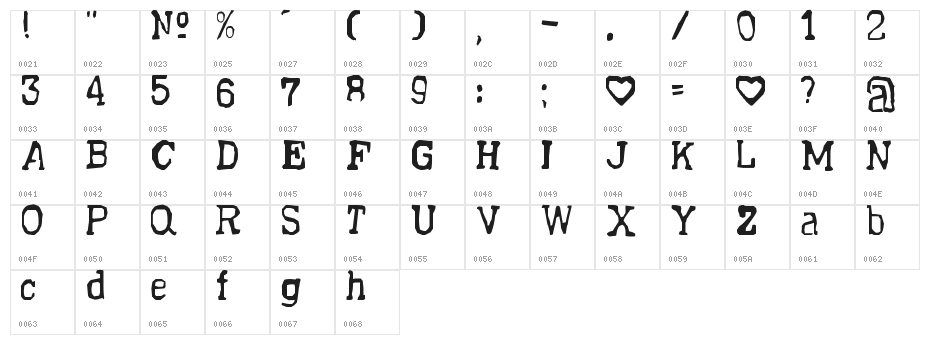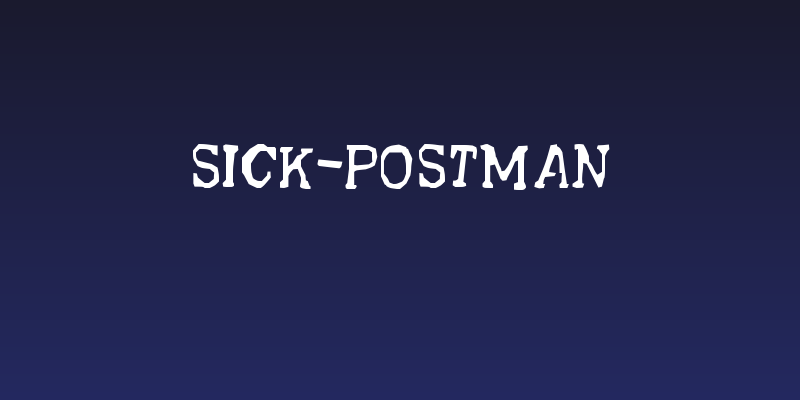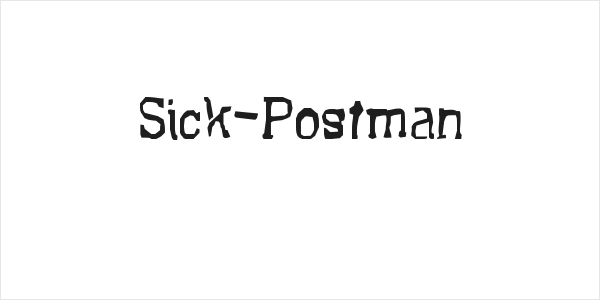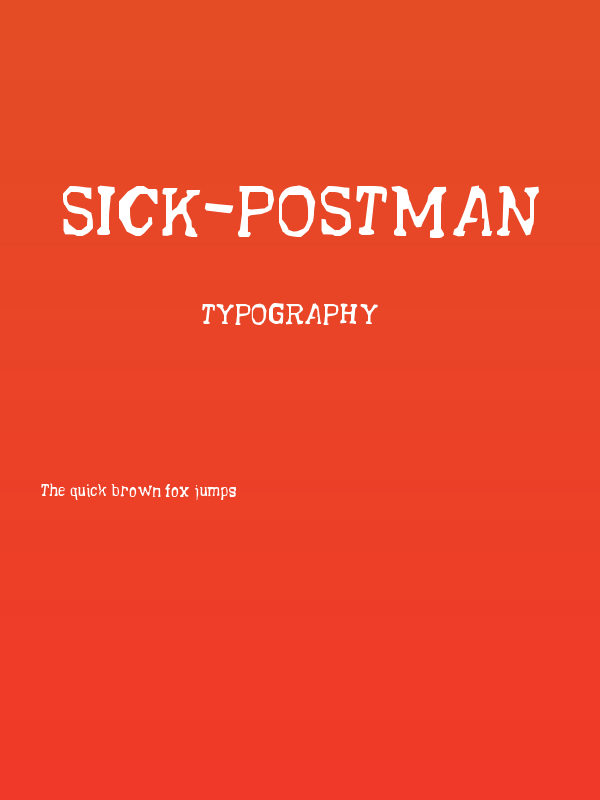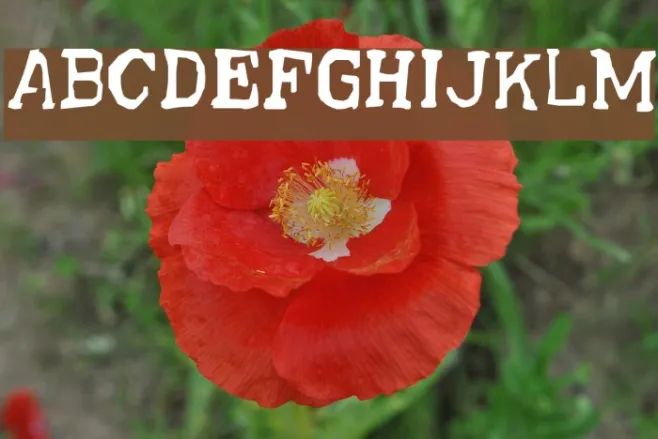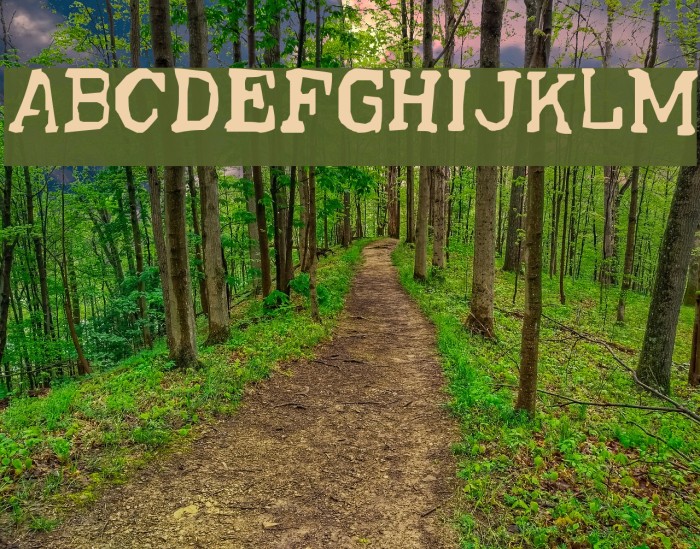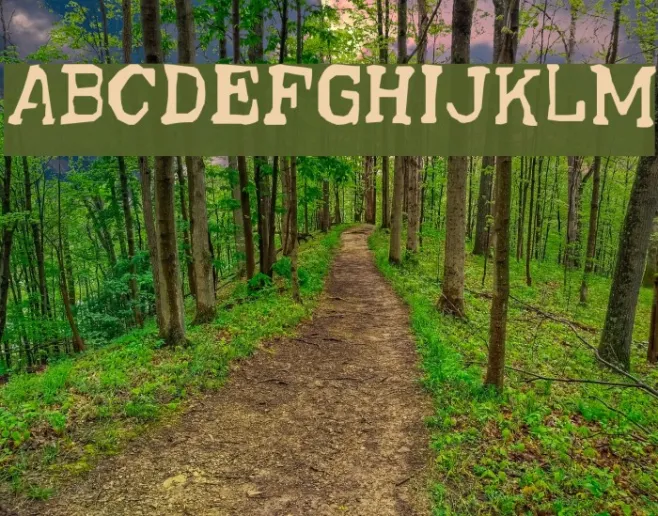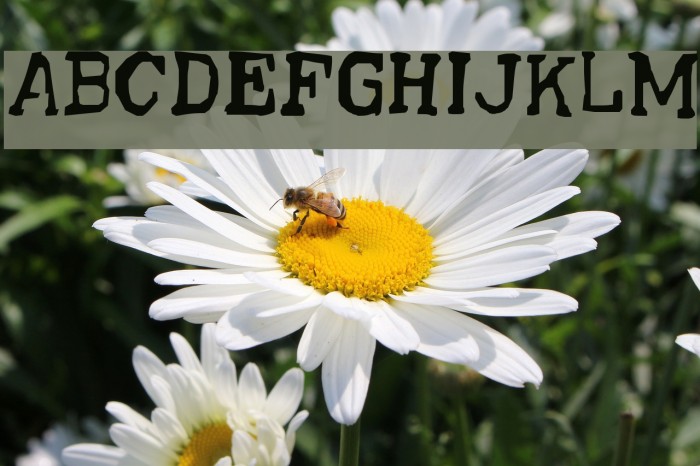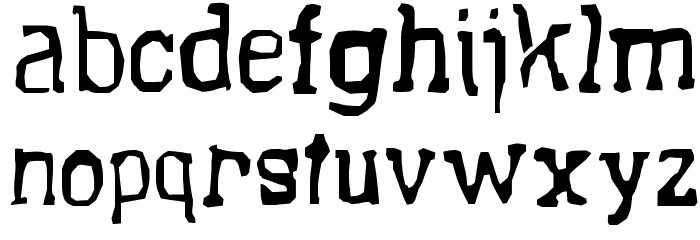
Sick-Postman Font
Sick-Postman Description
This font features a rugged, distressed style with uneven edges and a hand-drawn appearance. The characters have a bold presence, with varying stroke thicknesses that give it a dynamic and energetic feel. The uppercase and lowercase letters maintain a consistent style, while the numbers and special characters complement the overall aesthetic. The font's unique, irregular shapes make it stand out, adding a touch of creativity and personality to any design. Its rough texture and organic look are reminiscent of vintage or grunge styles, making it suitable for projects that require a bold, artistic touch.
| Overall Style | Vintage, Grunge |
| Proposed Projects | Ideal for posters, album covers, branding, and any design needing a bold, artistic flair. |